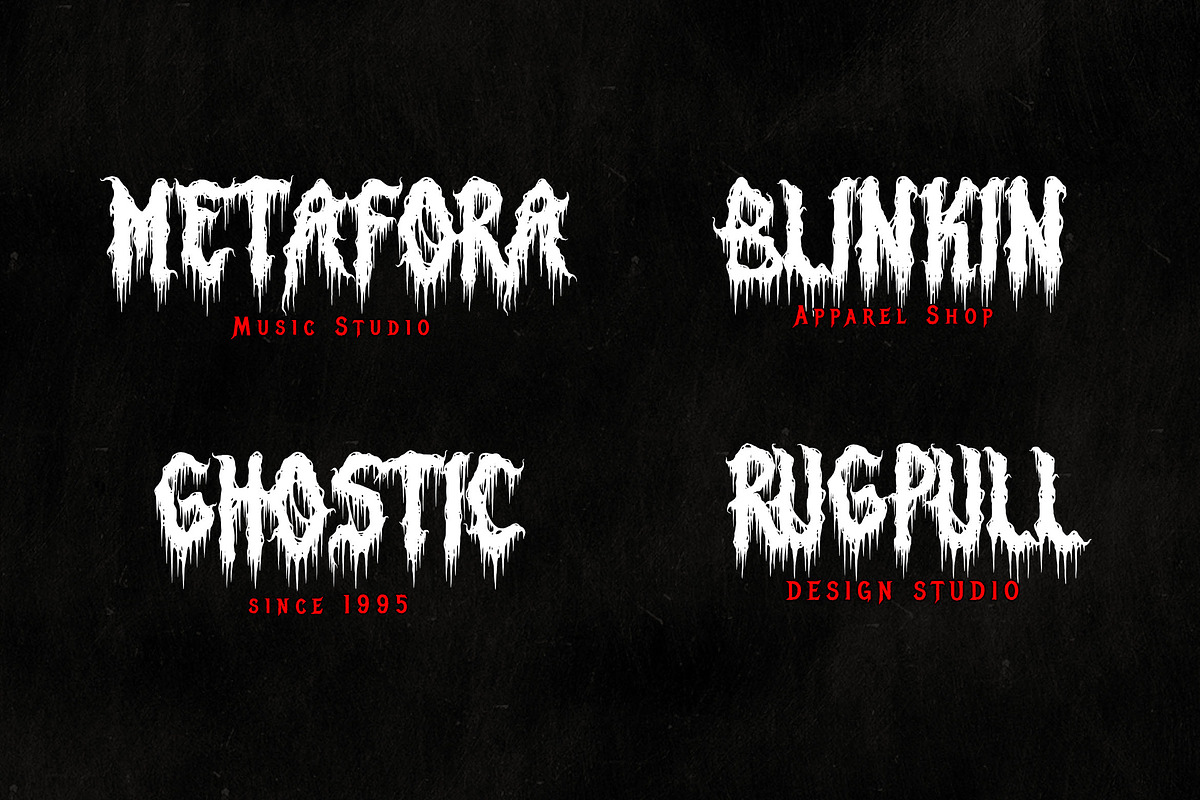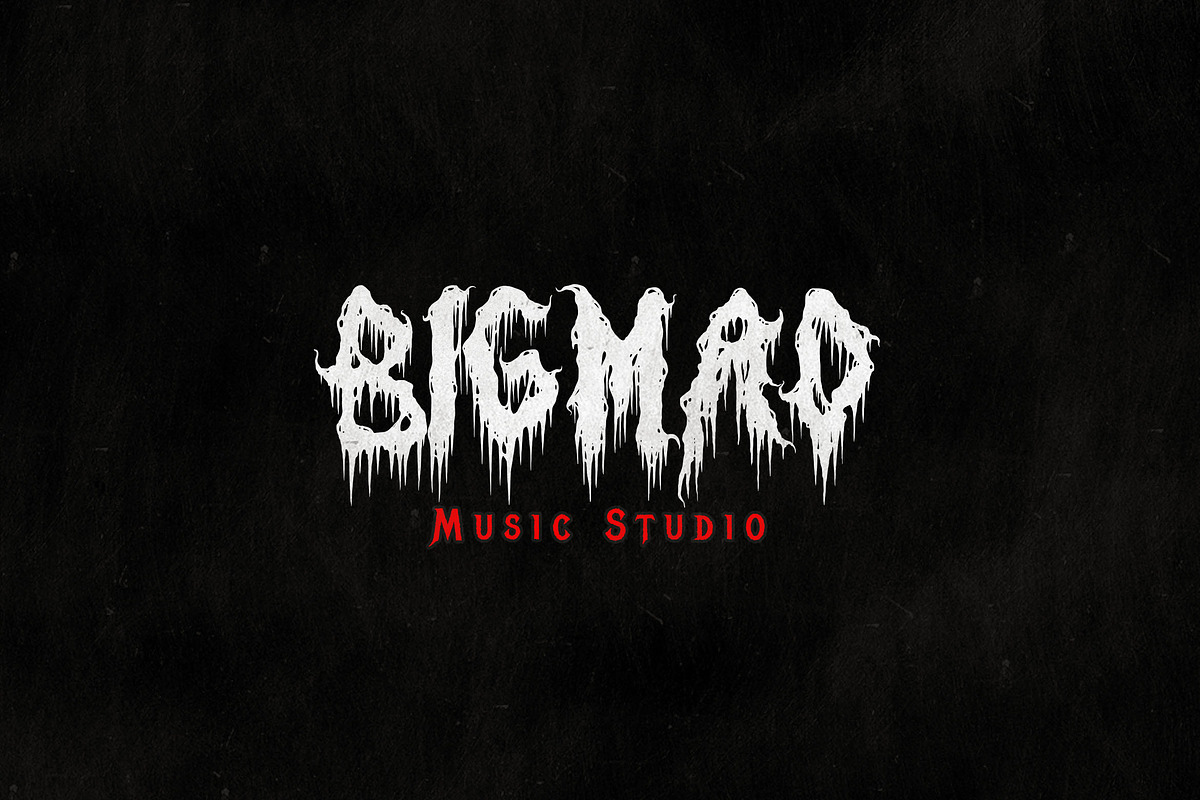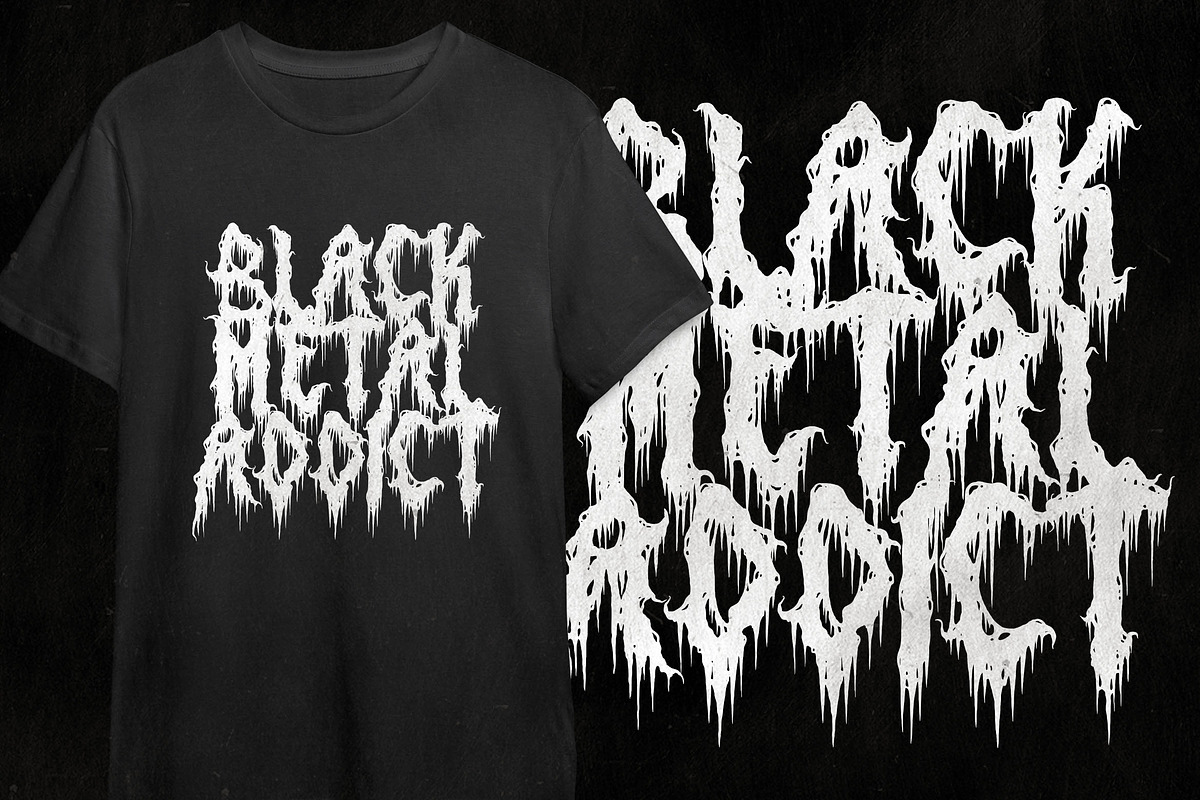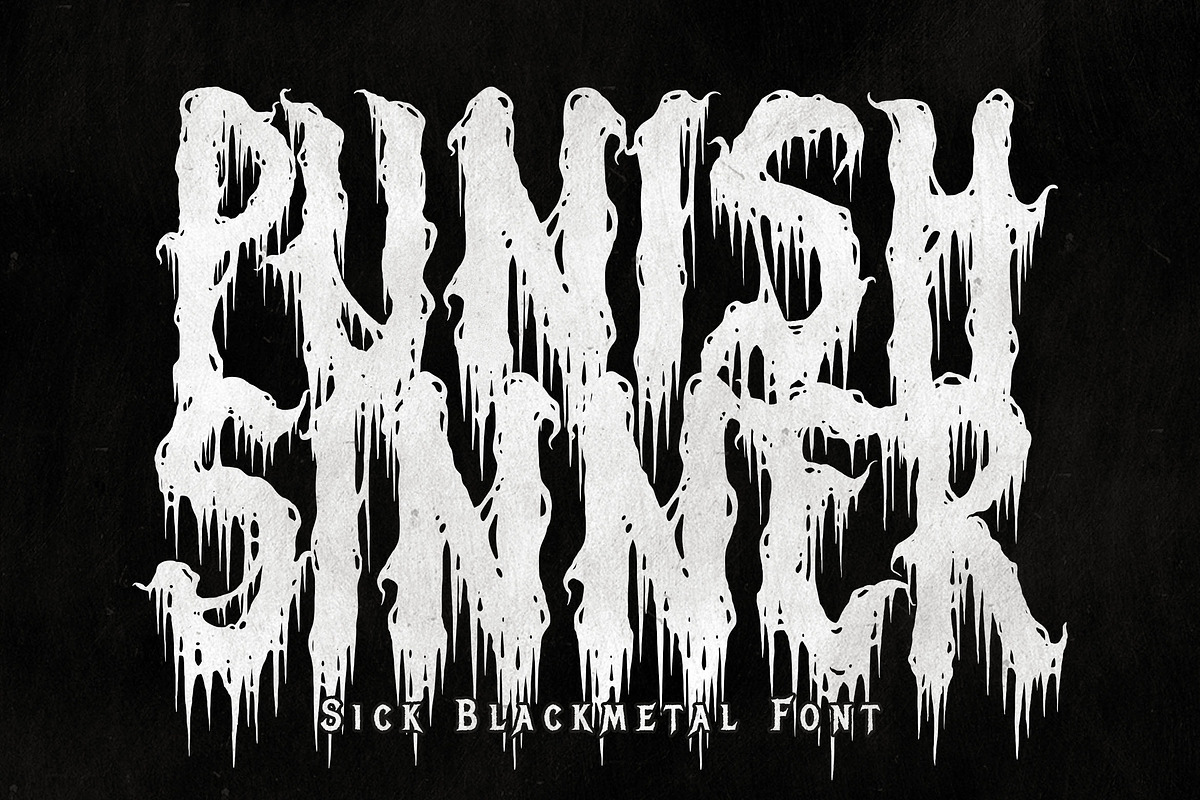
Punish Sinner Black Metal
Punish Sinner is awesome death metal font. Comes with Uppercase and lowercase characters. This font is great for any gore/metal/brutal design purposes. Punish Sinner is awesome for your logo, your band, for merchandise, for clothing, and movie title/poster